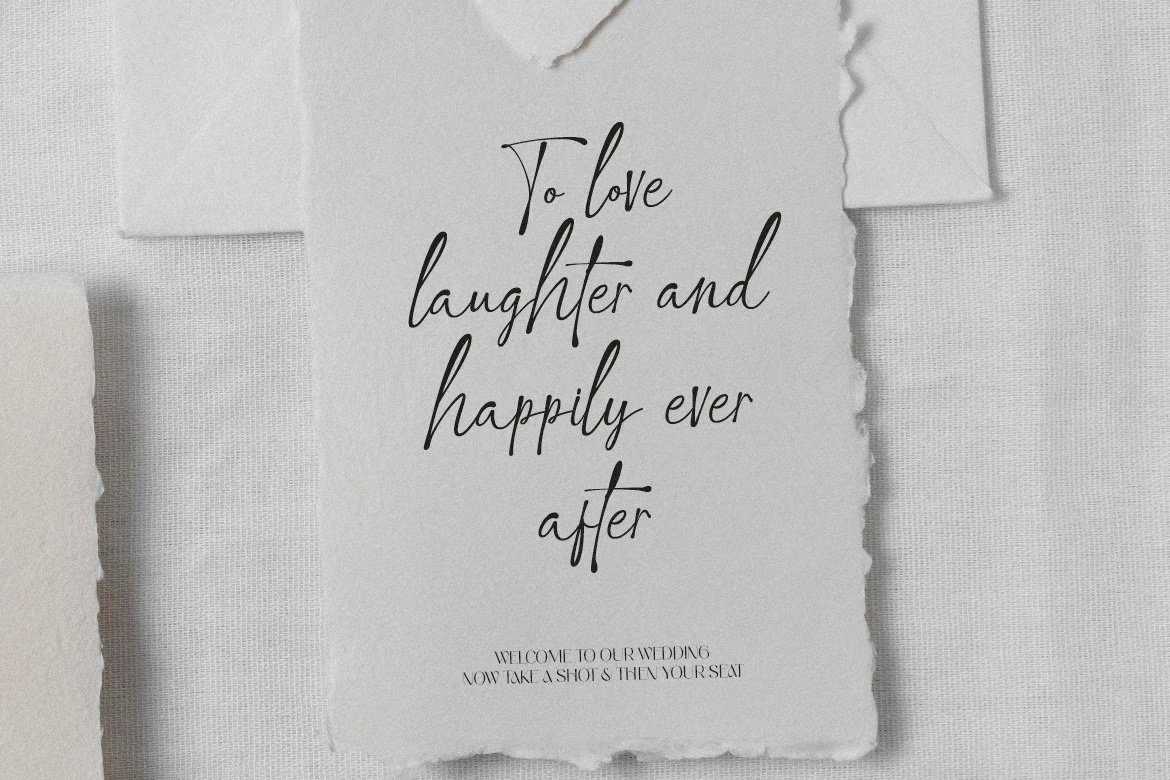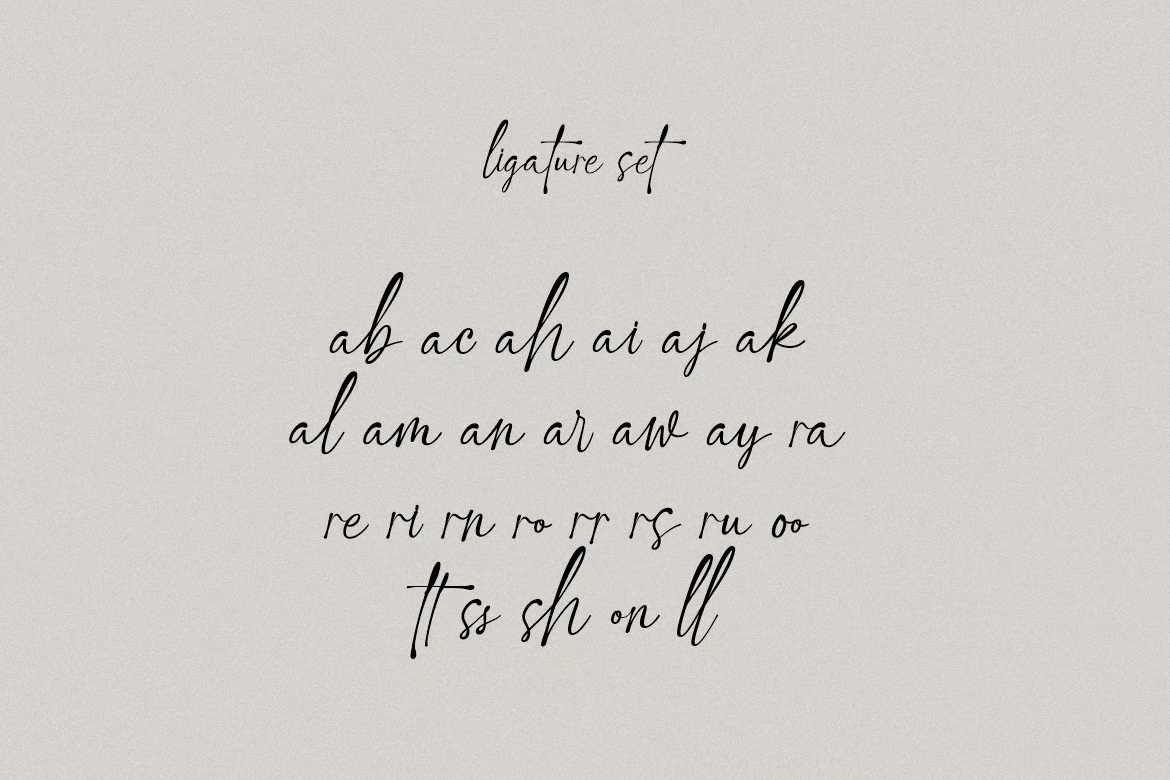
Prishton Sign looks like a real signature written with a fine pen. The strokes are thin and slightly shaky, the letters lean right, and the capitals are tall and quick. It sits on the cover over an old envelope with postmarks.
A wedding card mockup reading To love, laughter and happily ever after shows how it handles a short phrase stacked over a few lines. Burhan Afif of HansCo Studio added a ligature set, with pairs such as ab, ar, ff, ss and ll, which keeps double letters from looking copy pasted. It also has multilingual support.
Best uses for Prishton Sign
- Wedding invitations
- Quote cards
- Personal logos and signatures
- Instagram posts
- Handmade product labels
Pair Prishton Sign with a clean serif such as Cormorant Garamond. Montserrat in small caps works for details. For body text, try Lora.
Prishton Sign Handwritten Font